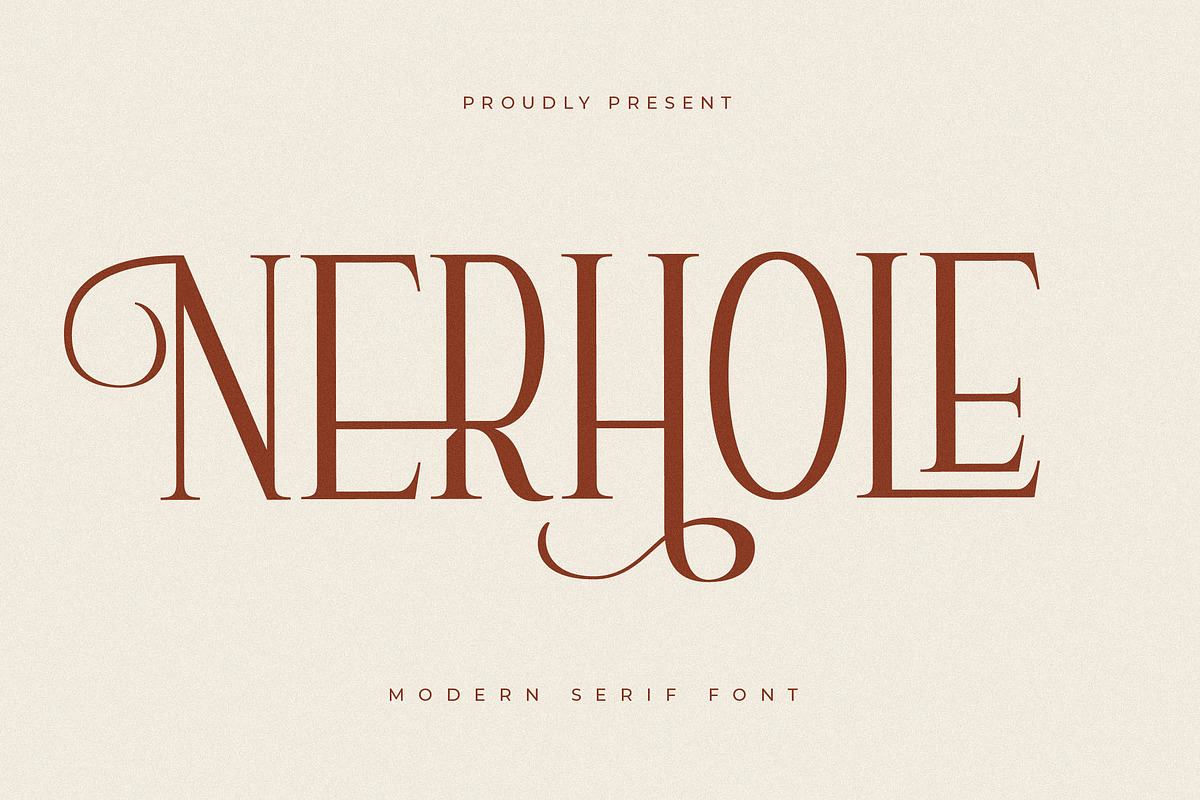
Nerhole Modern Serif Font Free Download is a sleek and stylish typeface crafted to elevate contemporary design projects. With its refined serifs and balanced contrast, Nerhole brings sophistication to branding, editorial layouts, logos, packaging, and more. This font combines modern aesthetics with classic elegance, making it a versatile choice for creative professionals.
Nerhole’s elegant curves and sharp terminals create a bold yet graceful impression. Whether you're working on a high-end fashion label or a minimalist website design, this serif font provides the perfect balance of readability and flair. The smooth letterforms make it ideal for both display use and longer text settings.